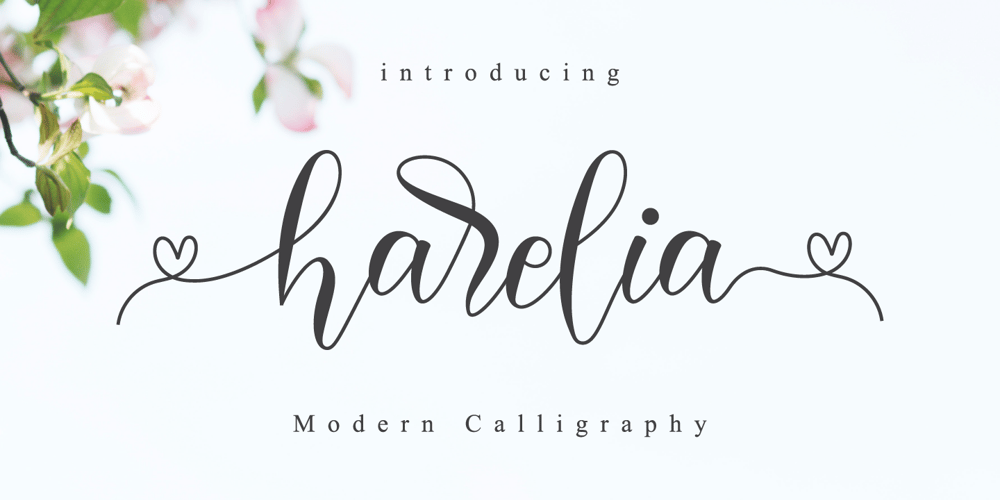
Harelia Font Family was designed by Novia Himatunnisa and published by Nissa Nana. Harelia contains 1 styles and family package options. Harelia is an equally classy and authentic handwritten font with a unique feel. Fall in love with its organic swashes!